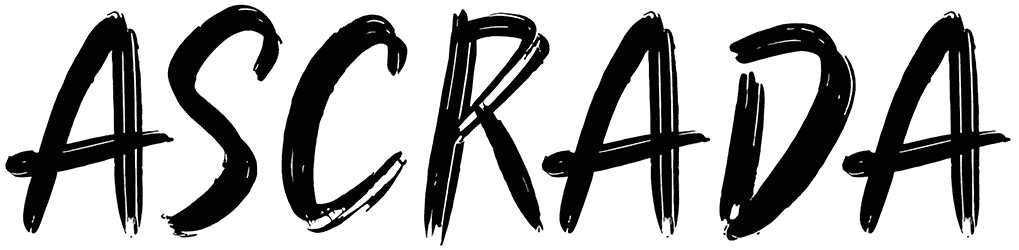
Ascrada Font
If you like to have a trendy and urban visual for your layout that will never get old, using a minimal brush font like this one can be a smart choice. Even with no cover of lowercase letters, Ascrada can make your innovative design level up. Put this script font on words of your projects, mainly flyers, logos, and so on, and have delight.